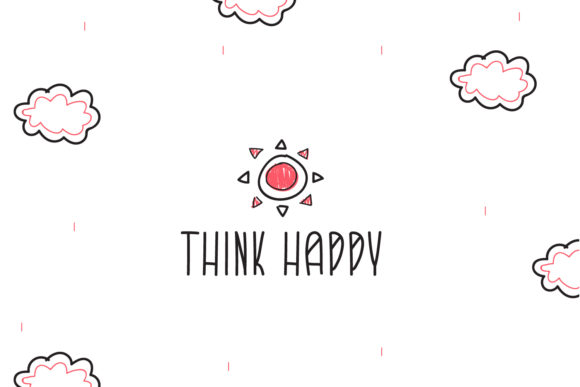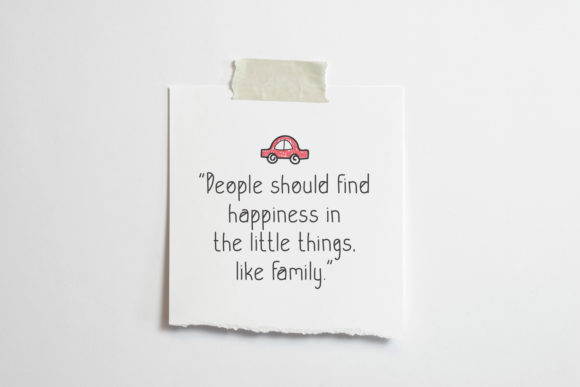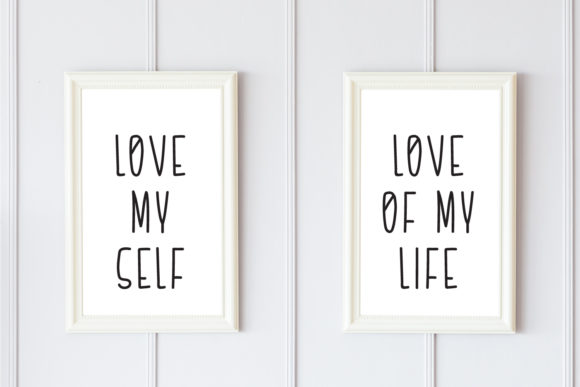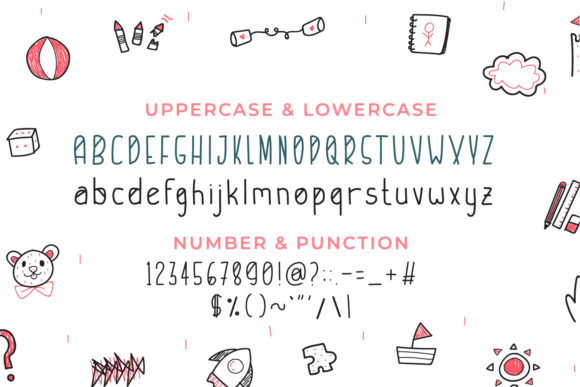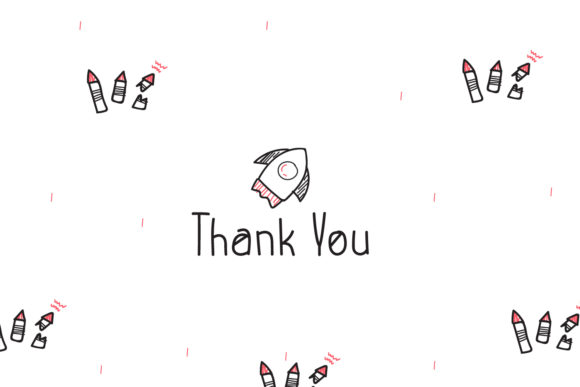
Introduction to Happy Bro Font
Remember that moment when you finally nailed the design for your client’s logo? The feeling of satisfaction and pride that comes with it is unmatched. For designers, it’s all about finding the perfect font to bring a project to life. And that’s exactly where the Happy Bro Font comes in – a stylish and delicate handwritten font that’s about to become your go-to design resource.
With its clean, thin, and smooth vibe, Happy Bro Font is perfect for adding a touch of elegance to any design. Whether it’s a branding project, product packaging, or invitation, this font is sure to make your work stand out. Plus, its versatility makes it ideal for creating high-quality designs with a transparent background, perfect for t-shirts, labels, posters, and logos.
Key Features of Happy Bro Font
- High-quality design resource ideal for creative projects, such as logos, graphics, and typography.
- Designed with a unique, playful style that adds a touch of personality to any design project.
- Perfect for designers seeking a fun and modern font to elevate their creative projects.
Honest Review: Happy Bro Font
As a designer, I’m always on the lookout for high-quality design resources to elevate my creative projects. Recently, I stumbled upon the Happy Bro Font, and I was excited to give it a try.
- ✨ The font is highly legible, making it perfect for body text or headings.
- ✨ The design is modern and clean, which fits well with contemporary design trends.
- ⚠️ The font selection is limited, with only a few styles and weights available.
Overall, I’m impressed with the Happy Bro Font, but it’s not perfect. If you’re looking for a high-quality, modern font for your design project, I’d recommend giving it a try. Just be aware of its limitations and see if it fits your needs.
Tips for Getting the Most Out of Happy Bro Font
Experiment with different font sizes, colors, and combinations to create unique and eye-catching designs. Use the font’s transparent background to create visually appealing and engaging graphics.
The Happy Bro Font is ideal for a variety of creative projects, including social media graphics, logos, and marketing materials. Its transparent background and high-quality design make it a versatile and valuable design resource.